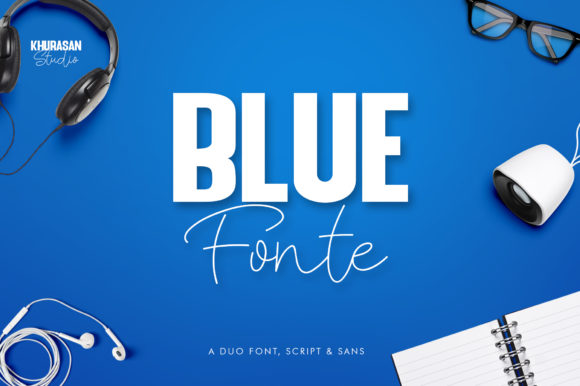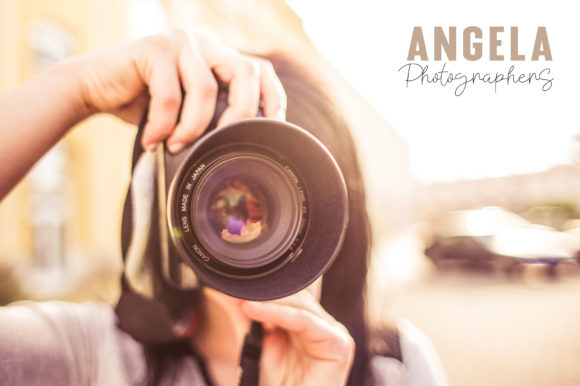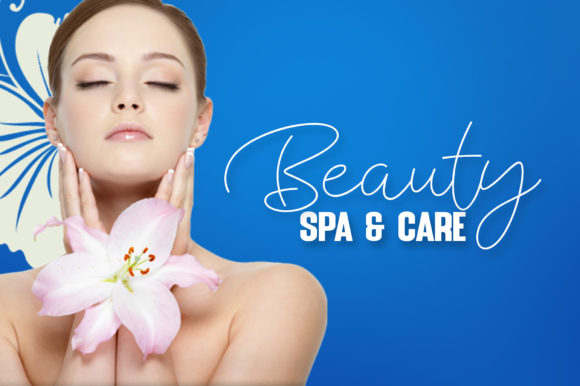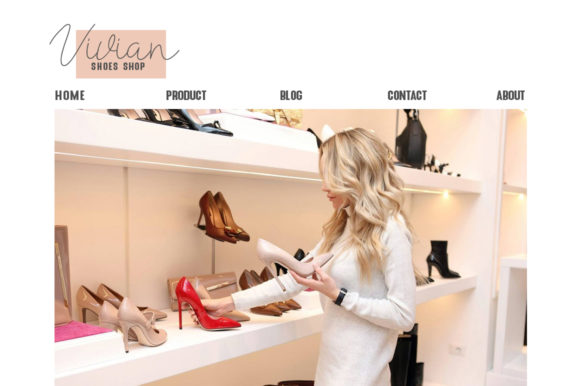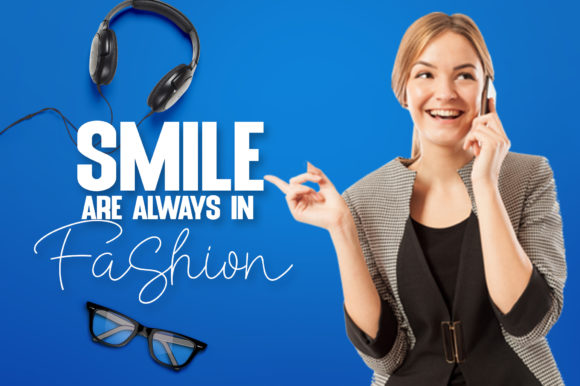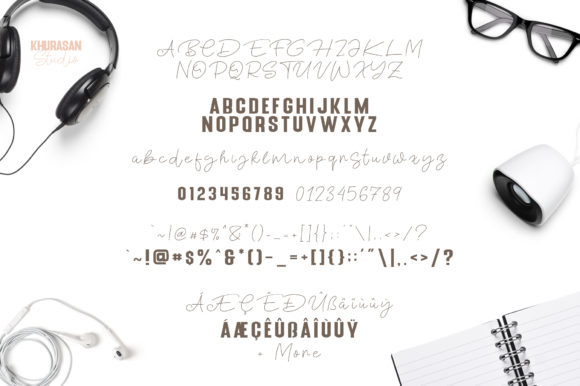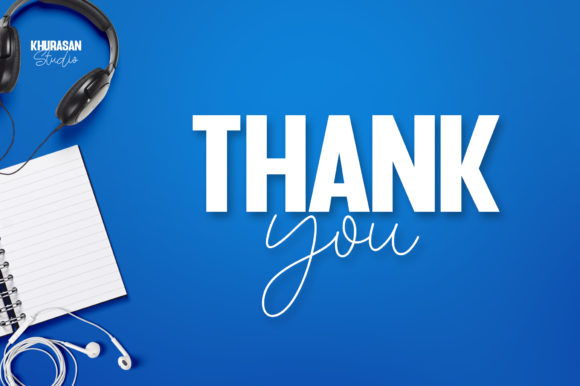
Blue Fonte Duo Font
About Blue Fonte Duo Font
Blue Fonte is a lovely font duo that brings together two stunning fonts. Get inspired by its one-of-a-kind elegance.